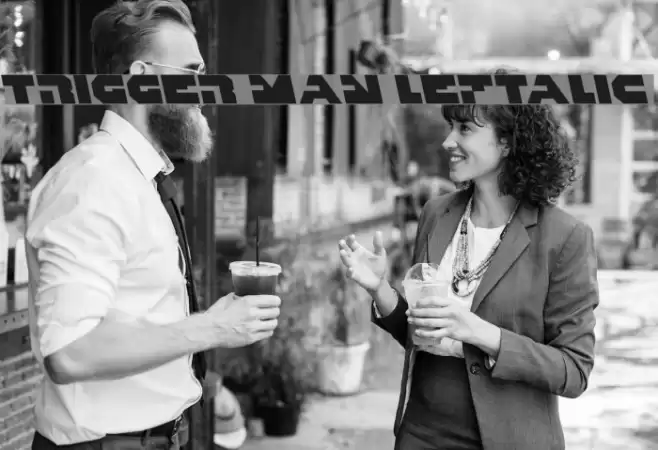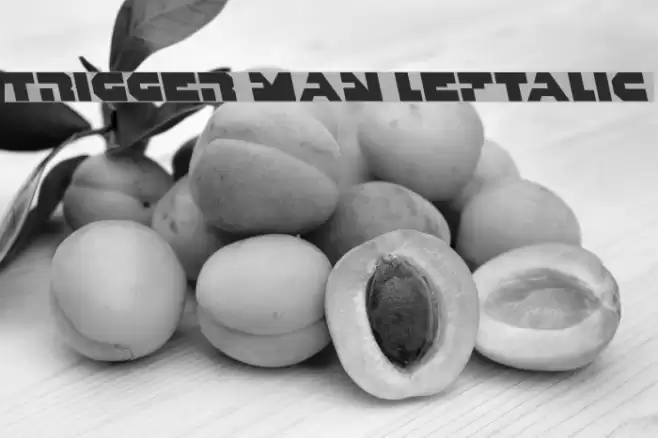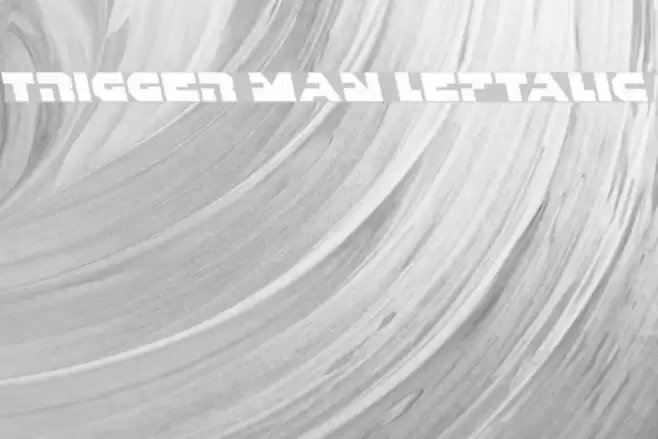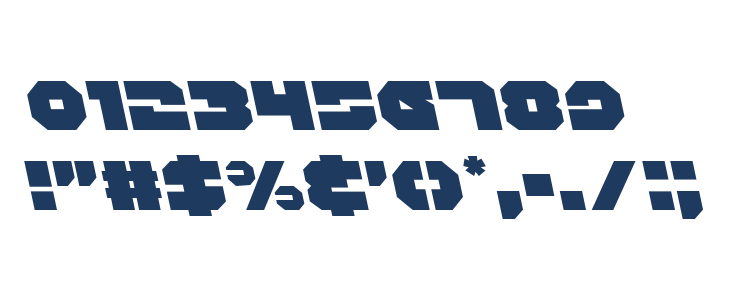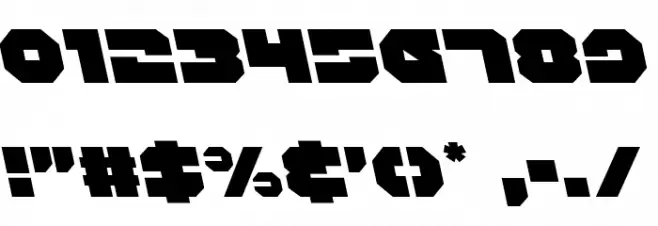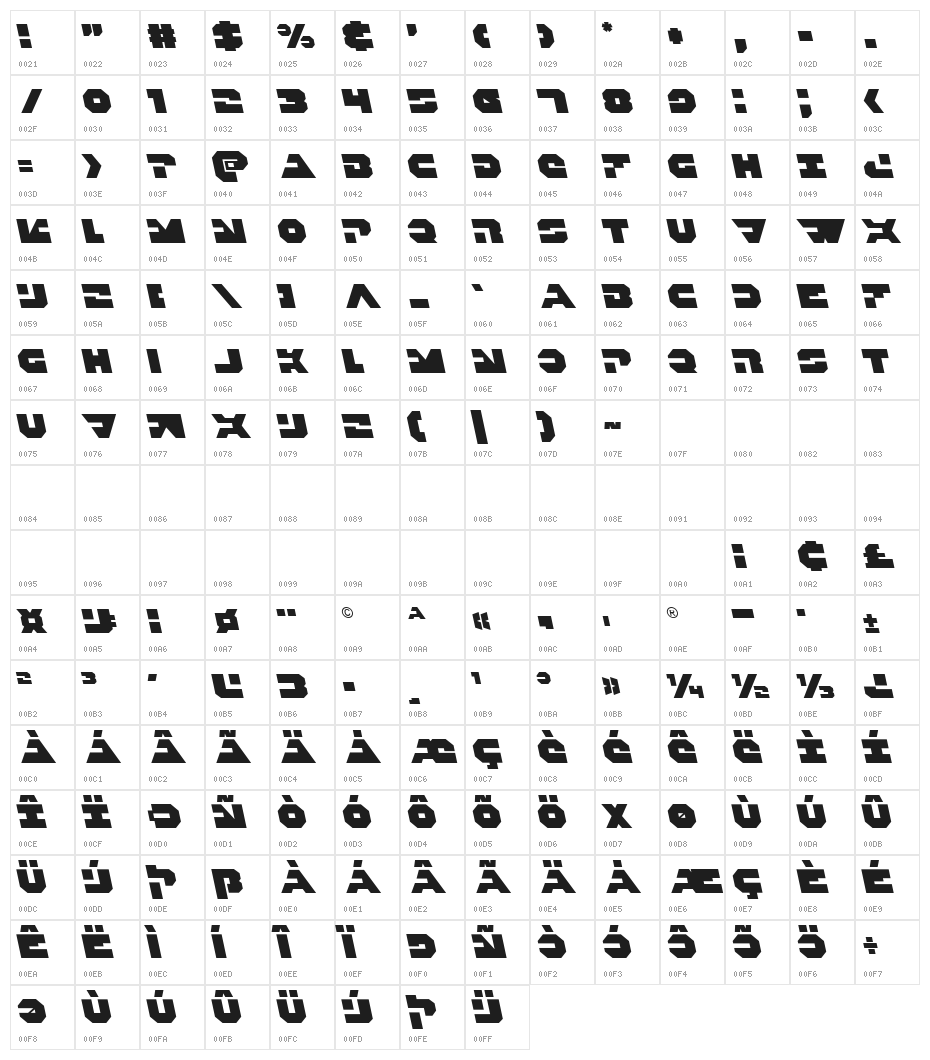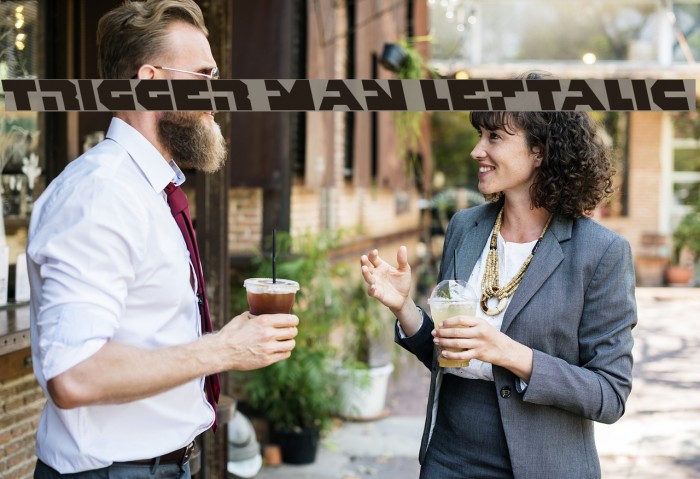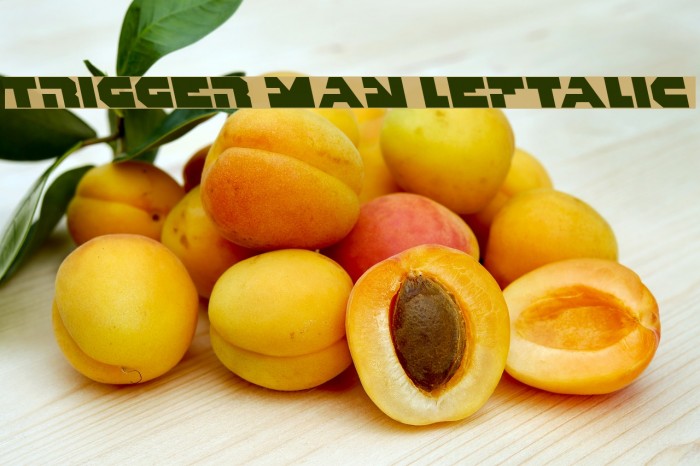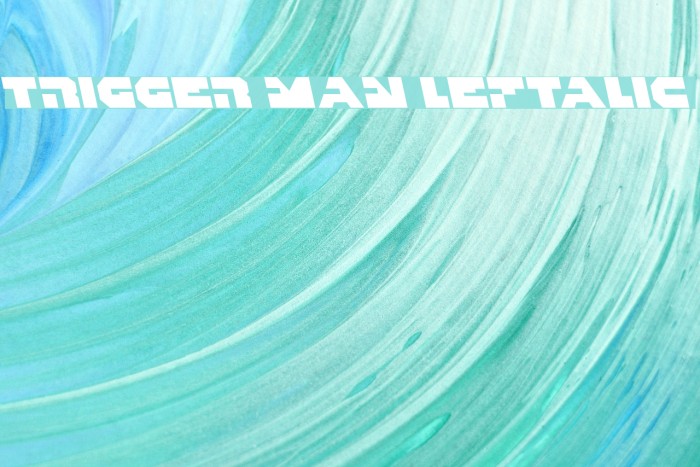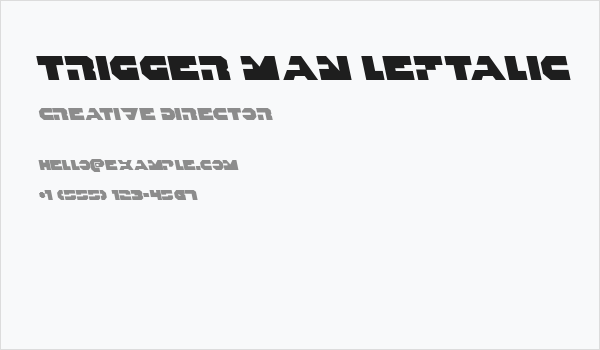
Trigger Man Leftalic Font
Trigger Man Leftalic Description
This font features a bold, angular design with a futuristic and geometric aesthetic. The characters are constructed with thick, block-like shapes, giving them a strong and impactful presence. The sharp angles and unique cuts within the letters create a dynamic and edgy look, making it stand out in any design. The uppercase and lowercase letters maintain a consistent style, while the numbers and special characters follow the same bold and angular theme. This font is ideal for projects that require a modern and assertive appearance.
A bold, angular font with a futuristic and geometric design from Uncategorized fonts.
- Proposed Projects: Ideal for video game titles, sci-fi movie posters, tech branding, and edgy graphic designs.
- Overall Style: Futuristic